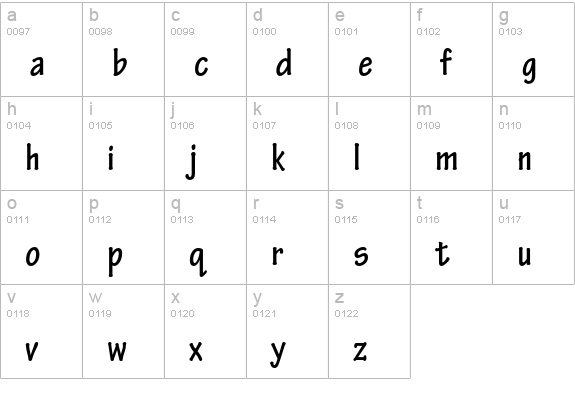
Tekton Pro Bold Condensed is a strong, high-contrast, condensed-width variant in the Tekton typeface family \xE2\x80\x94 well suited to headlines, attention-grabbing titles, and strong calls-to-action.
Tekton Pro Bold Condensed is a captivating and versatile typeface that effortlessly combines strength and elegance. Its bold and condensed design commands attention, making it the perfect choice for impactful headlines, striking logos, and attention-grabbing marketing materials. With its clean lines and balanced proportions, Tekton Pro Bold Condensed exudes a sense of professionalism and confidence. The condensed letterforms allow for maximum impact in limited space, making it ideal for designs that require a bold and powerful presence. This font is not only visually appealing, but it is also incredibly user-friendly. The carefully crafted letterforms ensure legibility even at smaller sizes, making it suitable for both print and digital applications. One of the most remarkable aspects of Tekton Pro Bold Condensed is its versatility. It seamlessly blends into a wide variety of design styles, from modern and contemporary to retro and vintage. Whether you're designing a cutting-edge website, a sleek magazine layout, or a classic poster, this font will elevate your work to new heights. And the best part? Tekton Pro Bold Condensed is available for free download at FontsMarket.com. This means that you can enhance your designs without breaking the bank. Simply visit FontsMarket.com and discover the endless possibilities that Tekton Pro Bold Condensed has to offer. In conclusion, Tekton Pro Bold Condensed is a must-have font for any designer looking to make a bold statement. Its impressive combination of strength, elegance, and versatility ensures that your designs will stand out from the crowd. And with its free availability at FontsMarket.com, there's no reason not to add this exceptional font to your collection.